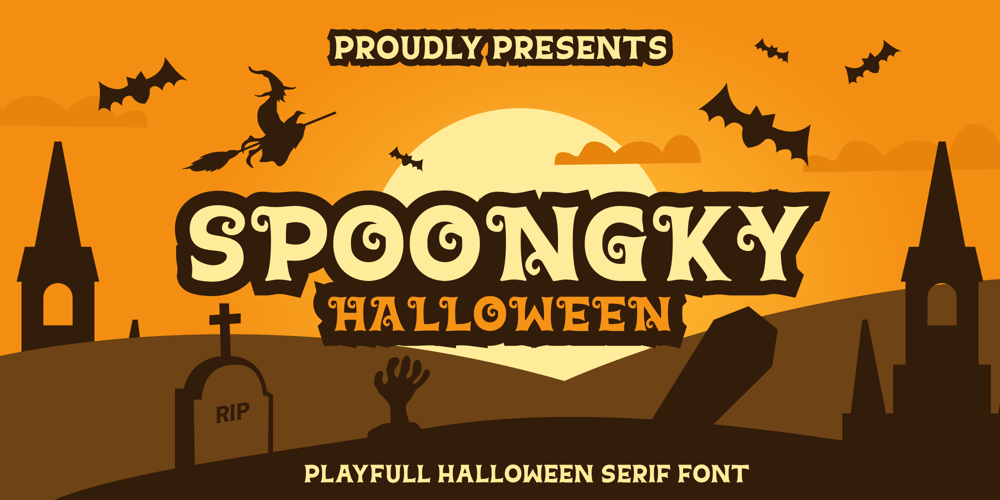
Spoongky Font Family was designed by Sol Hess and published by Juliawan90. Spoongky contains 1 styles and family package options. Introducing of our new product the name is Spoongky a Horror Font, Spoongky inspired by Bouncy horror style with a fun theme very good for horror, scary, spooky and halloween theme design.FEATURES :UppercaseLowercaseNumberPunctuationMultilingual